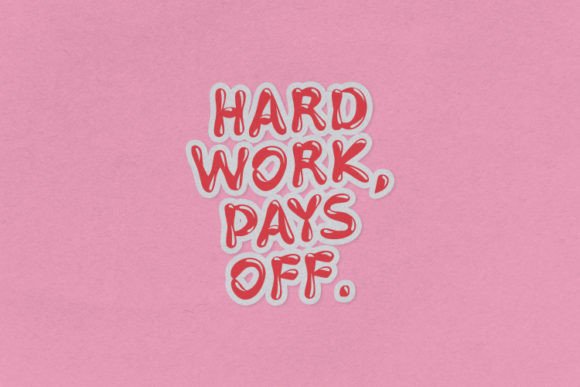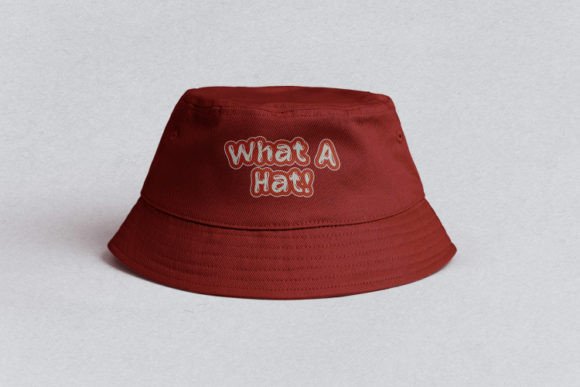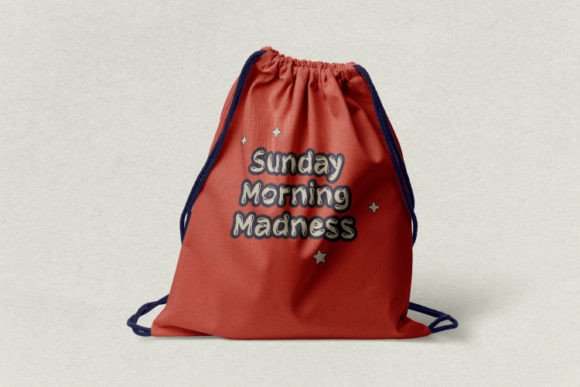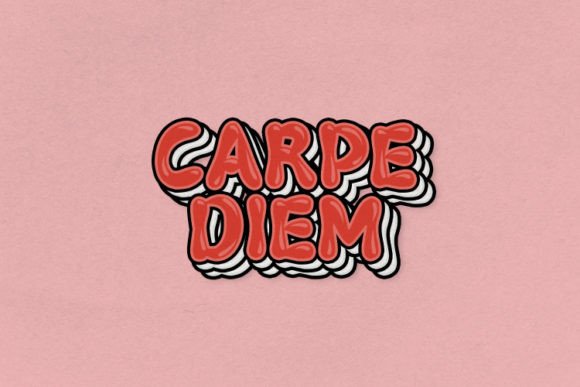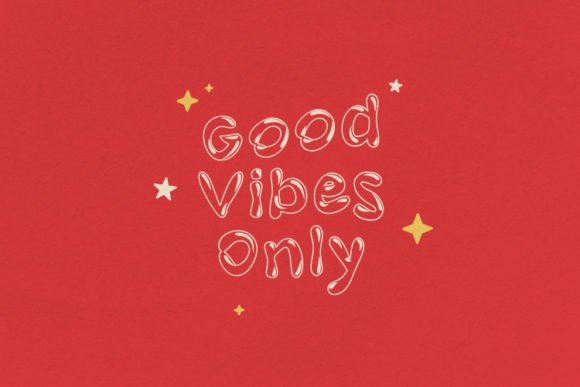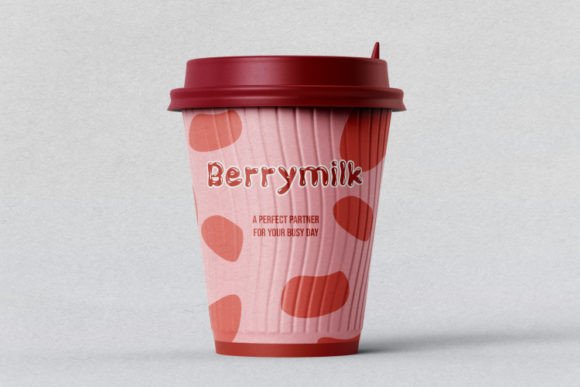
Introduction to Puffy Slushy Font
Do you remember that moment when you’re brainstorming ideas for your next creative project, and the perfect font suddenly pops into your head? It’s like a ray of sunshine illuminating your design space, and you know exactly what you need to make it shine. For many designers, that moment came when they discovered the Puffy Slushy Font.
This delightful display font is a masterclass in whimsy and charm, with its playful, hand-drawn style and adorable quirks. Whether you’re working on a fun children’s book, a quirky advertisement, or a social media campaign, Puffy Slushy Font is the perfect design resource to bring your vision to life. And the best part? It’s available for free download, complete with a transparent background for seamless integration into your design.
With its high-quality design and versatility, Puffy Slushy Font is a valuable addition to any designer’s toolkit. So why settle for a generic font when you can add a dash of personality to your projects with this lovable font?
Key Features of Puffy Slushy Font
- High-quality, hand-drawn design with a unique, playful touch
- Perfect for designers, artists, and crafters working on a wide range of projects
- Includes multiple font styles and weights for added versatility
Honest Review: Puffy Slushy Font
I recently had the chance to work with the Puffy Slushy Font on a creative project, and I must say it was a great experience. The font is a great addition to any design resource, and its high quality is immediately apparent.
What works well: ✨ The Puffy Slushy Font has a unique and playful design that adds a lot of character to any text. It’s perfect for projects that need a bit of whimsy and personality. The font also comes with a transparent background, making it easy to use with any background image or color.
What doesn’t work so well: ⚠️ The font is a bit on the thick side, which can make it difficult to read at smaller sizes. Additionally, the font family is relatively small, so it may not be suitable for large-scale projects.
Overall, I was impressed with the Puffy Slushy Font. It’s a great free download for anyone looking to add a bit of fun and creativity to their design projects. I would definitely recommend it to designers looking for a high-quality, unique font.
- Unique and playful design
- High-quality font
To get the most out of the Puffy Slushy Font, use it on a transparent background to create a stunning visual effect. You can also pair it with other fonts to create a unique typography style.
The Puffy Slushy Font is perfect for creative projects, such as:
- Typography-based designs
- Brand identity design
- Advertising and marketing materials